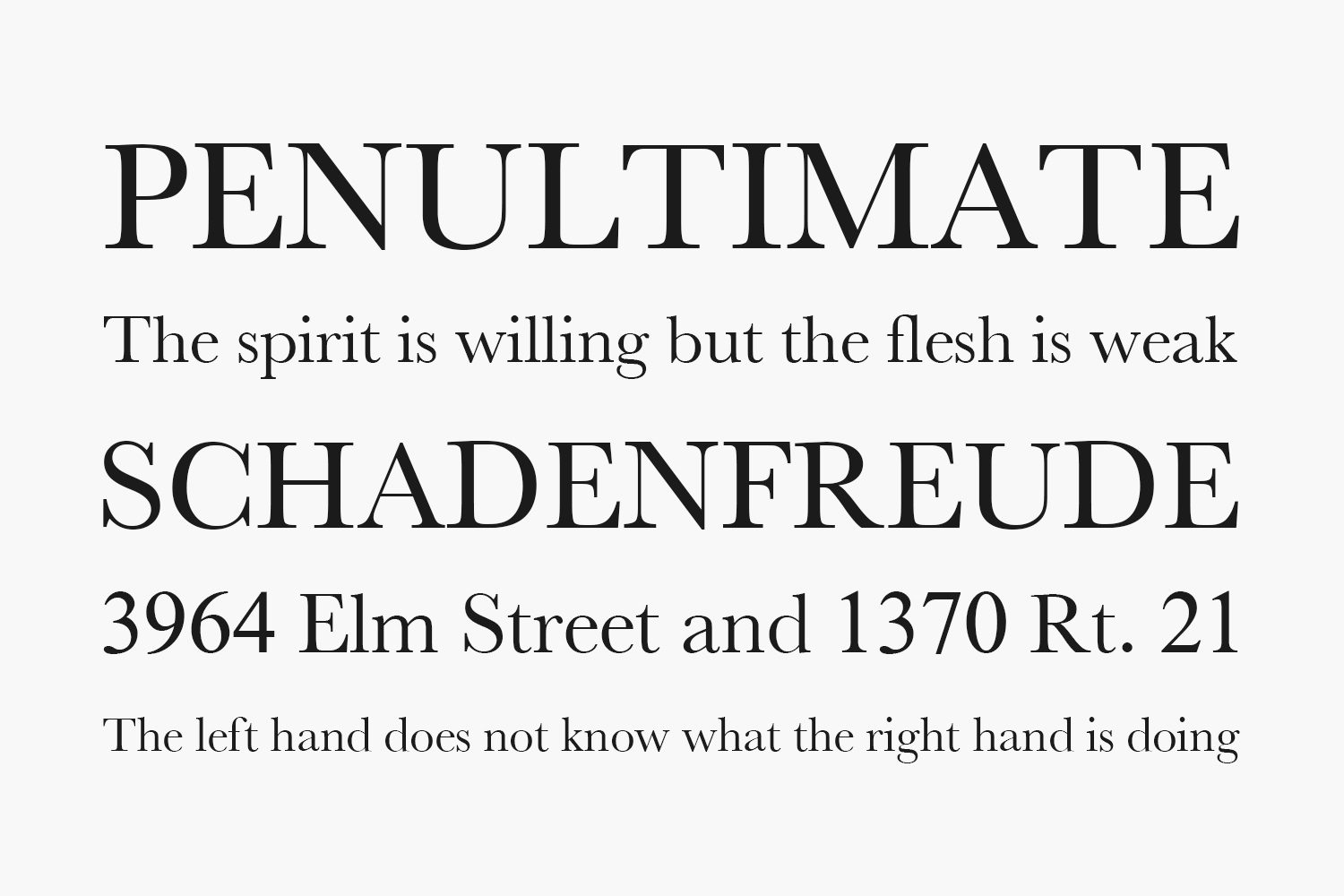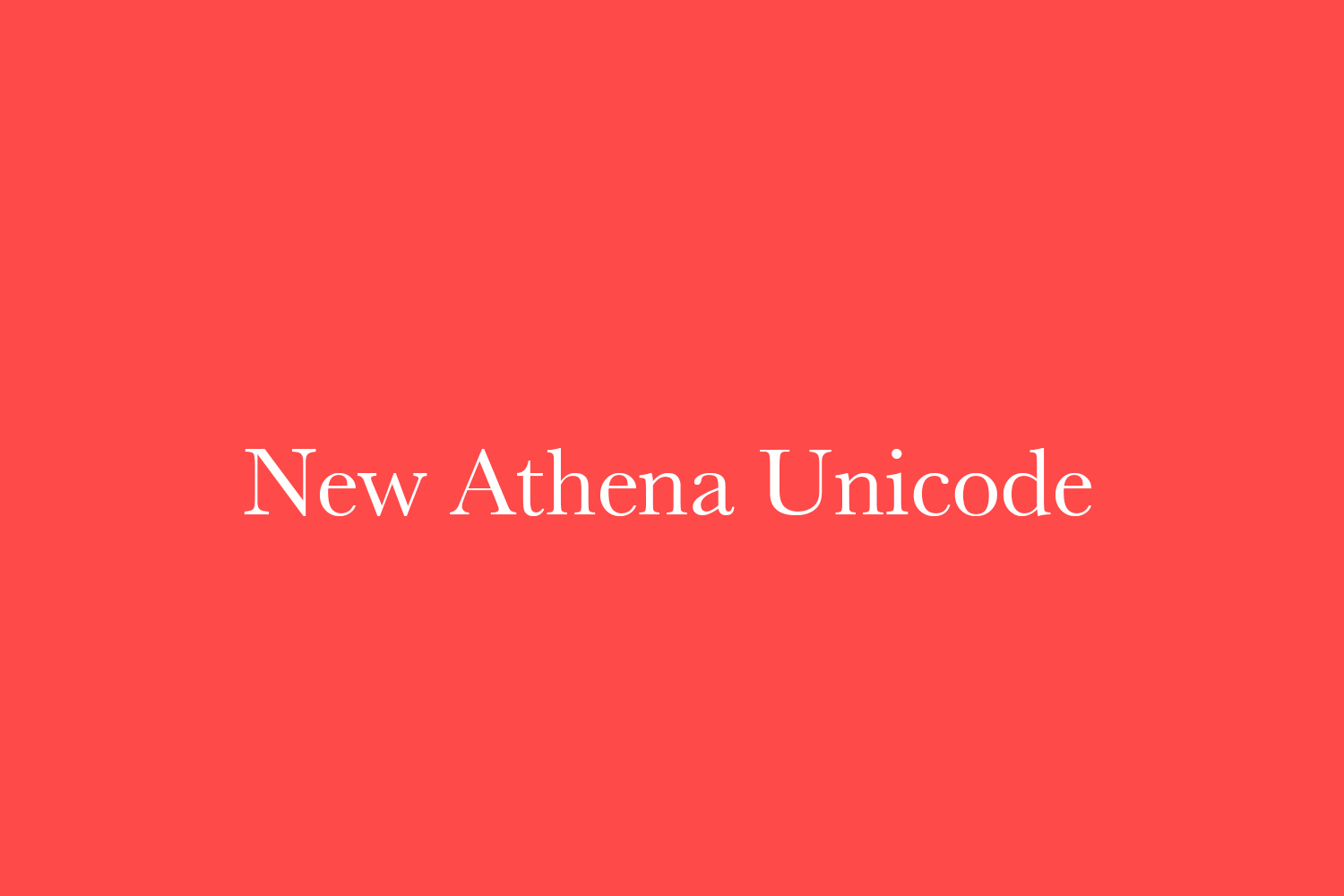
New Athena Unicode Free Font is a freeware multilingual font distributed by the American Philological Association. It follows the latest version of the Unicode standard and includes characters for English and Western European languages, polytonic Greek, Coptic, Old Italic, and Demotic Egyptian (and Arabic) transliteration, as well as metrical symbols and other characters used by classical scholars.
New Athena Unicode is a “smart font”: it contains OpenType ligature instructions that allow the display of well-formed precomposed glyphs in response to input of two or more Unicode code points. This capability allows the use of combinations like alpha with macron and acute and smooth breathing depending only on official Unicode code points. Ligatures are also used for correct placement of dots (U+0323) under Greek characters or strokes over Coptic characters. The same capability is helpful or necessary for some characters needed for papyrological transliterations of Demotic Egyptian or Arabic. Proper display of such features requires use of modern applications that support them.
Designed by American Philological Association